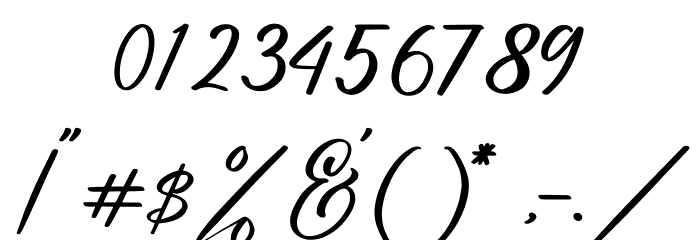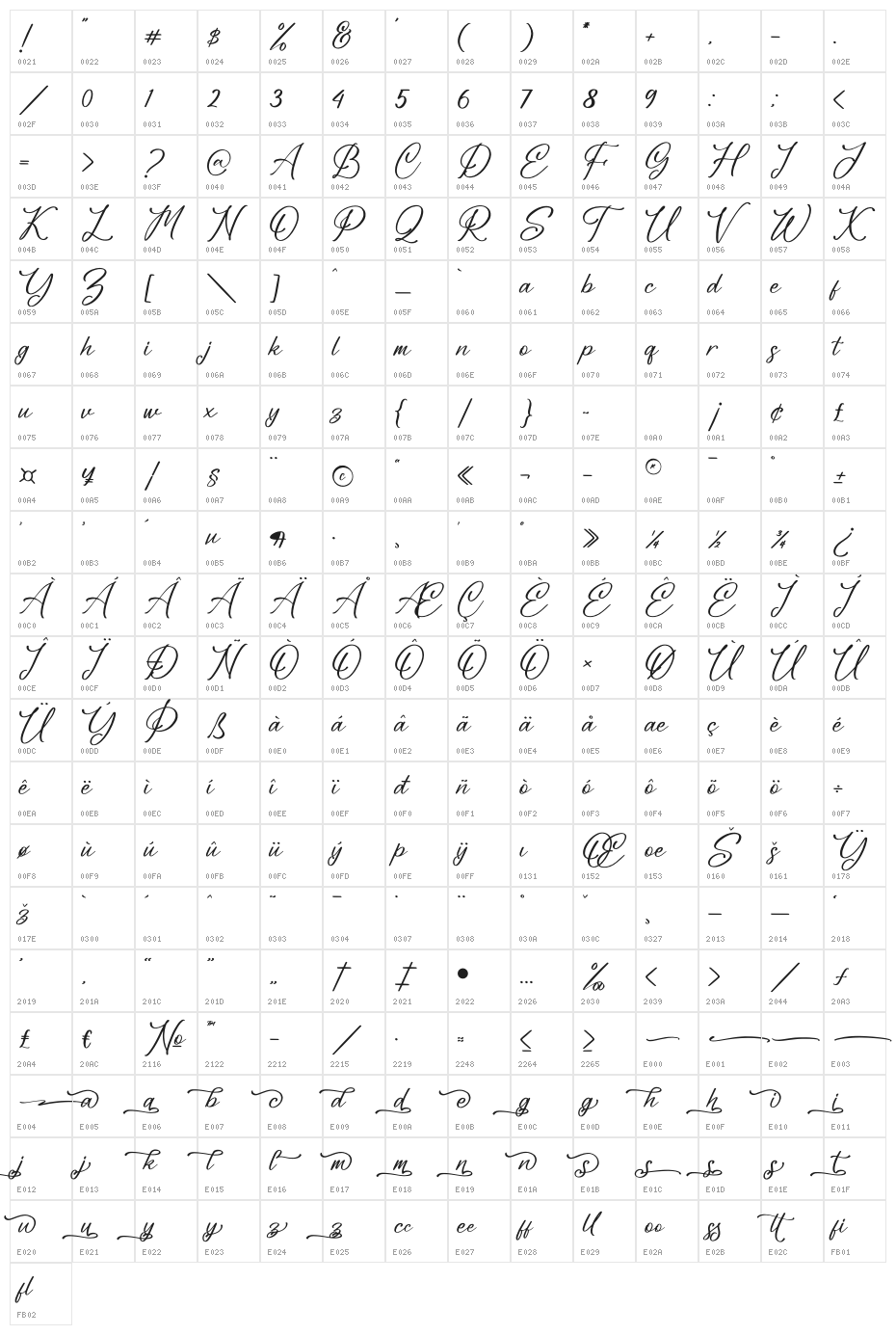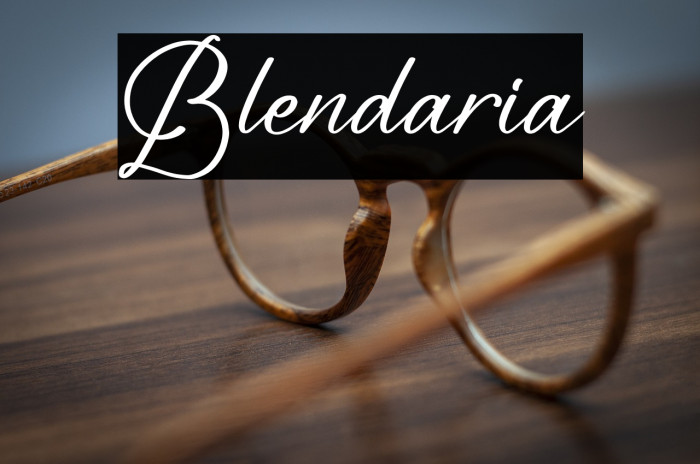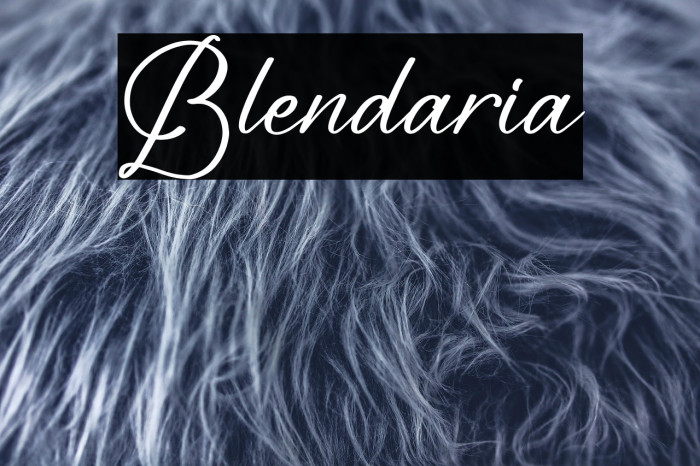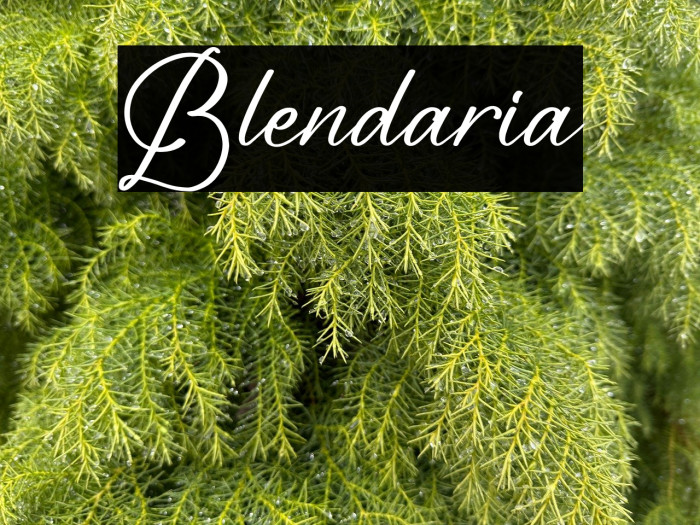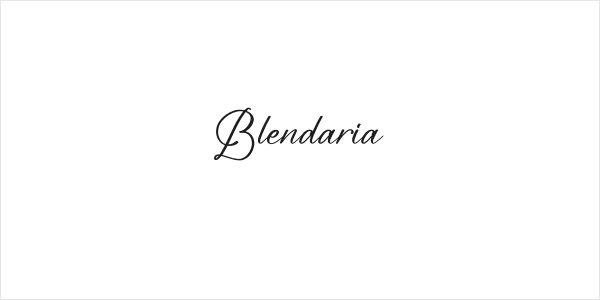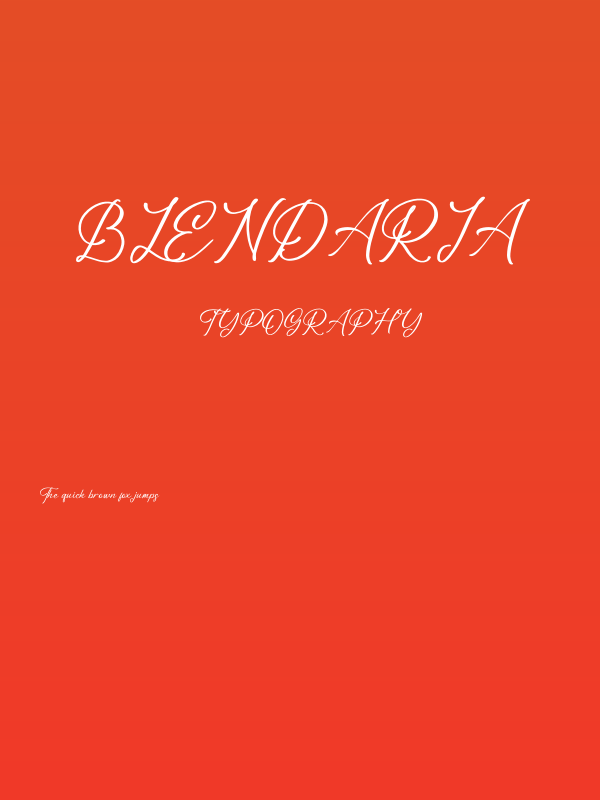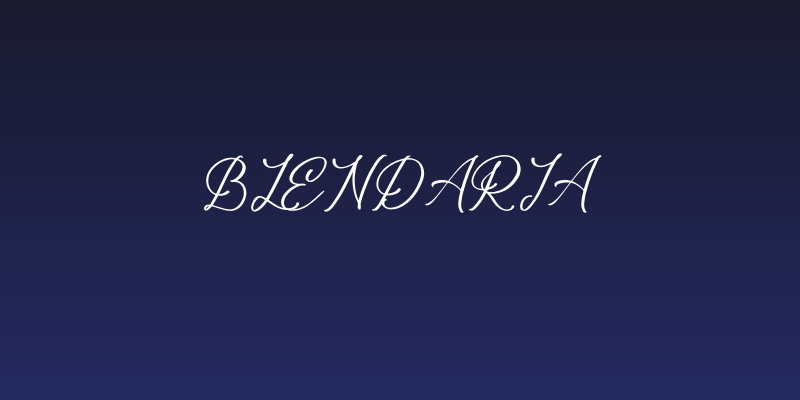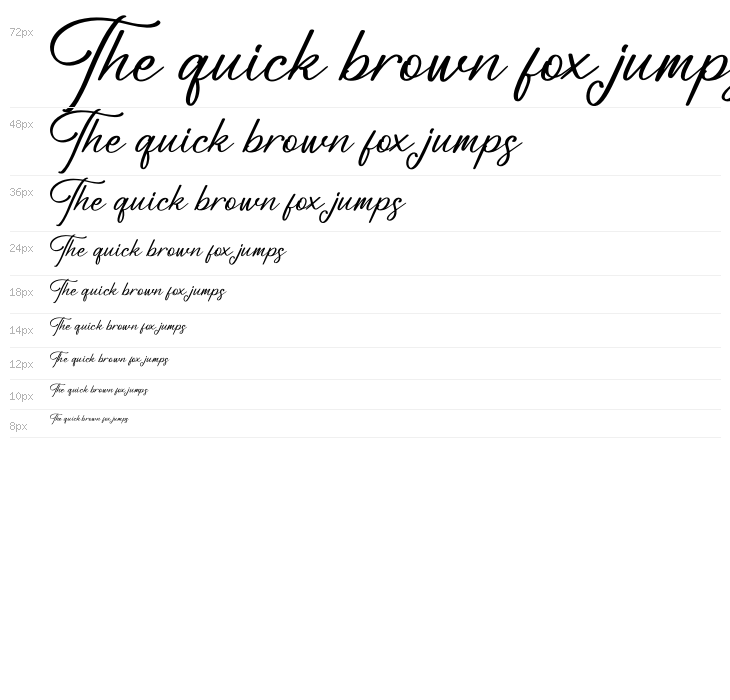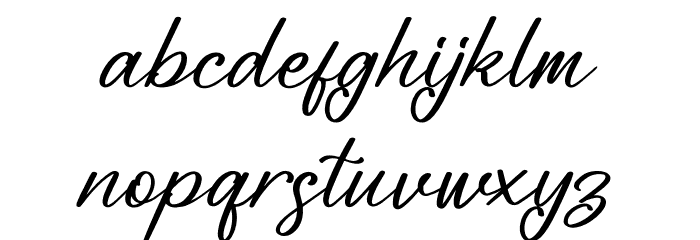
Blendaria Font
Blendaria Description
This elegant script font features flowing, interconnected letters that exude a sense of sophistication and grace. The uppercase letters are ornate, with sweeping curves and flourishes that add a touch of formality. The lowercase letters maintain a consistent flow, enhancing readability while retaining the decorative style. The numerals are stylish and align well with the overall aesthetic, making them suitable for both formal and creative applications. Special characters are thoughtfully designed to match the font's elegant theme, ensuring a cohesive look across all text elements.